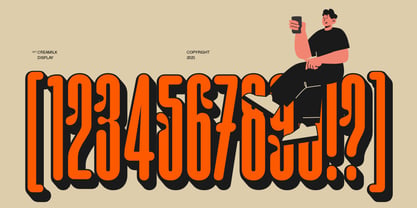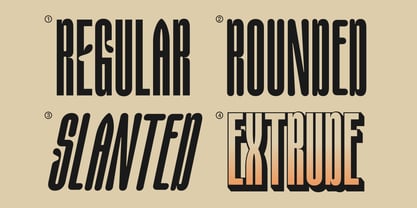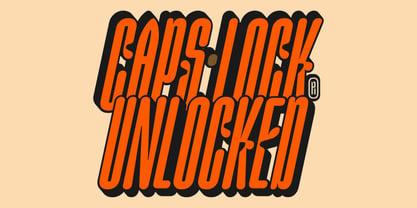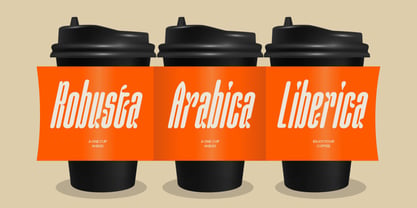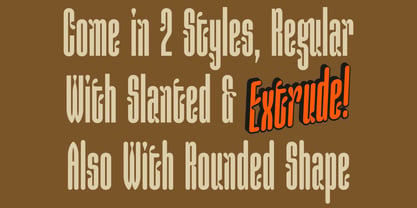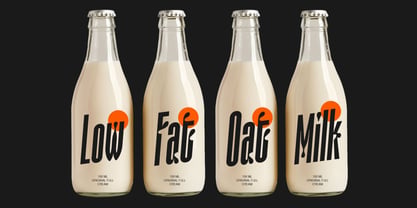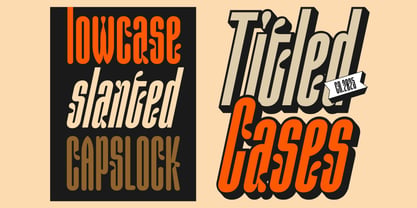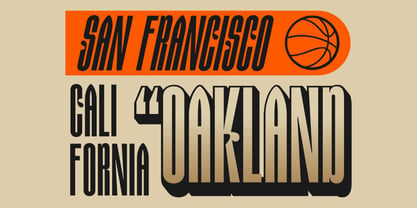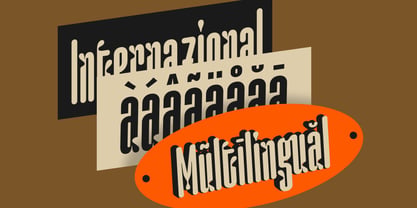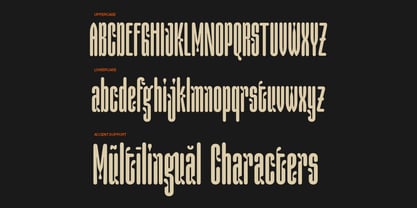
AOT Creamilk
by Arena Of Type
AOT Creamilk is a condensed display font with serious attitude. It combines clean lines with a playful spirit, making it perfect for designs that want to stand out with confidence and style. Featuring 8 distinctive styles including Regular, Rounded, Slant, and Extrude, this typeface gives you full creative control. Whether you are building bold headlines, layered typography, or expressive visual branding, AOT Creamilk adapts effortlessly across different moods and concepts. It brings just the right balance of structure and personality. Strong enough to grab attention and refined enough to leave a lasting impression. We had so much fun creating this font and felt incredibly excited throughout the process, and we hope you feel that same spark when you use it. Thanks!